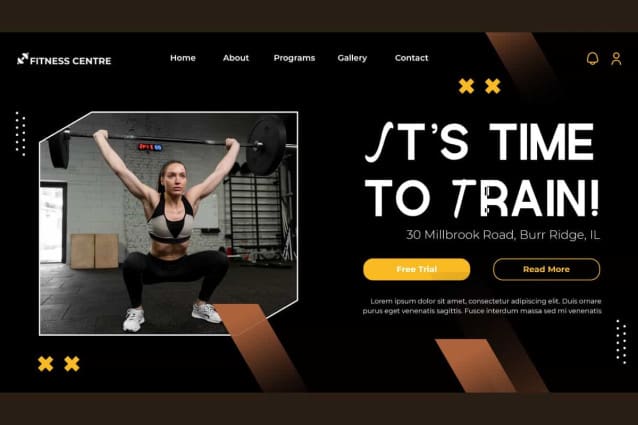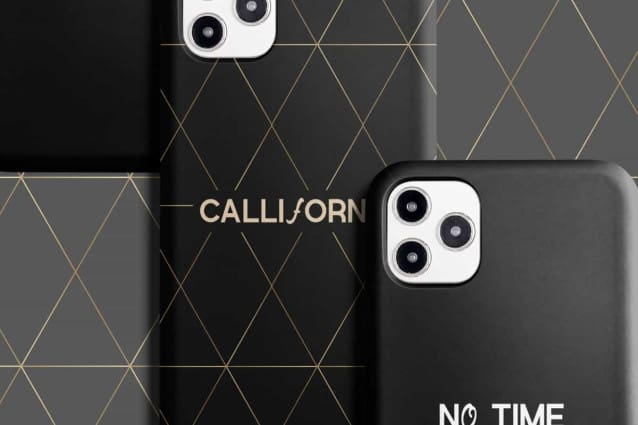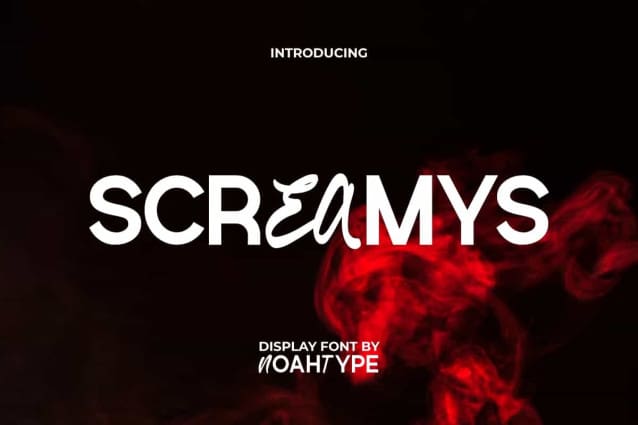
Screamys Font
Screamys Font is a mysterious exclusive and luxurious modern display font with special two styles combination. This font consists of a combination of Script for uppercase and Sans Serif for lowercase which exudes a fancy impression. It will be good for any designs, such as brand image, cover, custom design, invitation, label, marketing material, menu, poster, product packaging, quote, signage, stationery, web, and many more!
Screamys Font includes a complete set of Uppercase and Lowercase Basic Characters with different looks for both, Numerals, Punctuation, and Symbol. The characters of this font will give amazing touch and also a perfect choice for many industries, such as accessories, advertising, art, cafe, event or festival, fashion, movie, photography, printing, publishing, sport, etc.